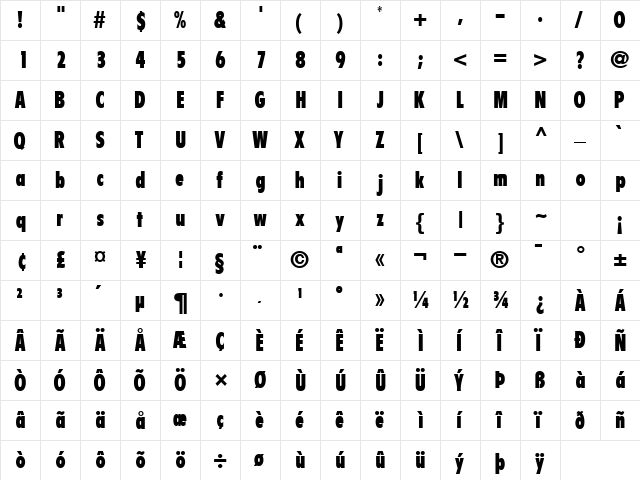
EmphasisBlackCondSSK Bold Font Preview
Design Context for EmphasisBlackCondSSK Typeface
EmphasisBlackCondSSK takes a measured approach to typography — its balanced proportions and neutral character make it a reliable workhorse for both digital and print work. The heavy weight commands attention and anchors typographic hierarchies. Its narrow stance lets it pack a punch even in space-constrained designs.